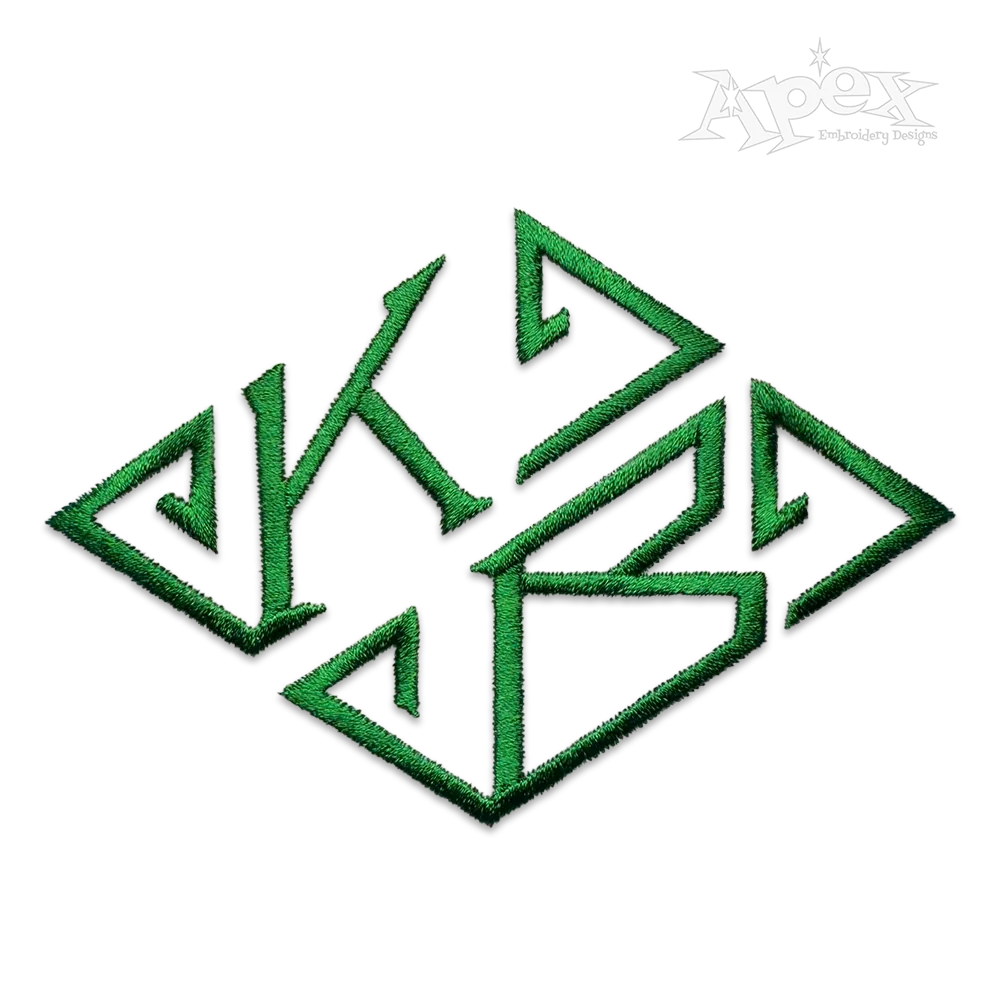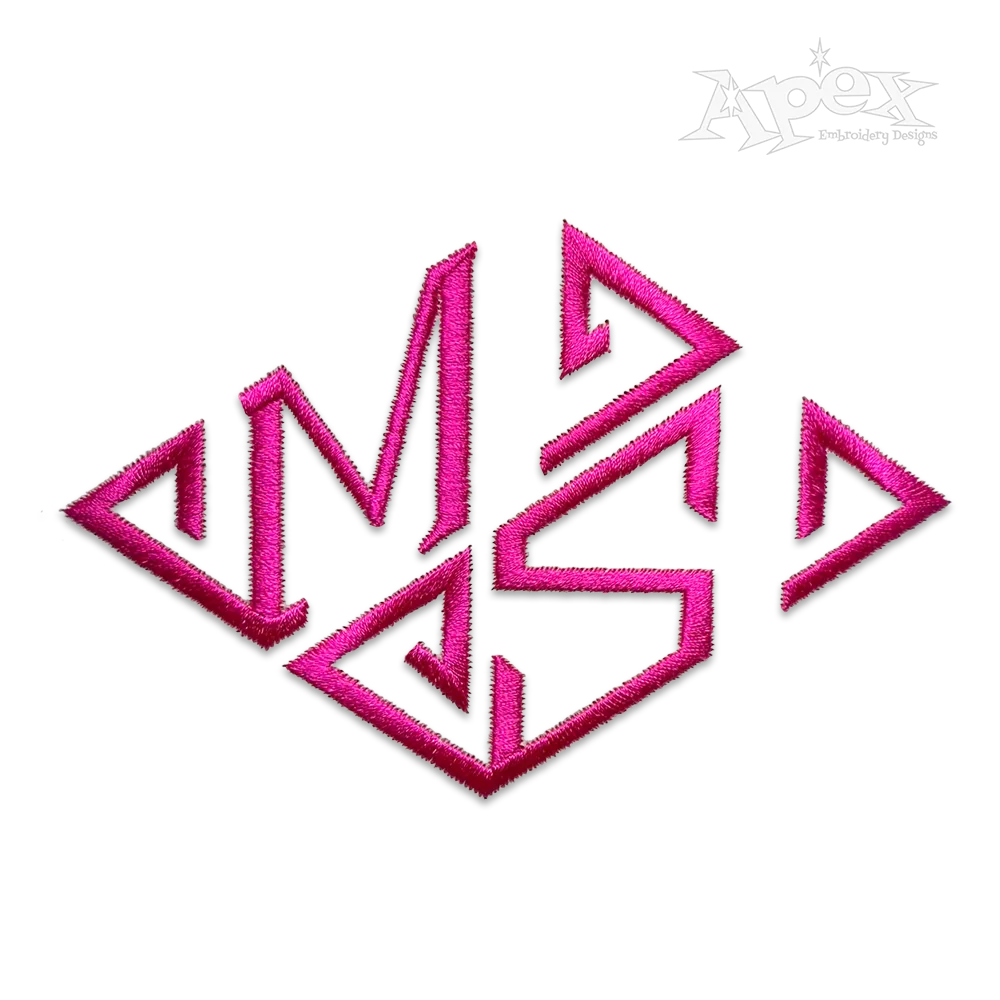
Marvin Rhombus Monogram Embroidery Font
Born from an appreciation for mid-century geometric balance and modern architectural tailoring, the Marvin Rhombus Monogram captures a captivating dialogue between crisp symmetry and lush thread dimension. When digitizing this two-letter diamond silhouette, our studio sought to reimagine traditional initials into a striking personal insignia. As your embroidery needle traces the contours of each character, the paired letters interlock seamlessly within their rhomboid boundary, creating a balanced, jewel-like impression that instantly elevates everyday textiles into bespoke heirlooms.
Project Ideas for Marvin Rhombus Monogram
The structured elegance of a two-letter rhombus monogram adapts effortlessly to both classic and contemporary aesthetics. Consider these inspiring applications for your studio:
- Luxury Table Linens: Stitch matching initials onto crisp Irish linen dinner runners and cocktail napkins for refined dining and celebratory dinner parties.
- Bespoke Resort Wear: Adorn lightweight linen button-downs, polo chests, and beach cover-ups with tonal embroidery for a polished country-club aesthetic.
- Bridal & Newlywed Gifting: Commemorate a couple's combined initials on plush cotton bathrobes, keepsake handkerchiefs, or custom honeymoon luggage tags.
- Executive & Travel Accessories: Bring refined personalization to heavy canvas boat totes, zippered travel kits, and golf towels using rich, contrasting thread tones.
- Heirloom Nursery & Bedding: Embellish boudoir throw pillows, pique blankets, and duvet covers with understated, timeless geometry.
Because the rhombus silhouette naturally creates visual direction with its angled outer edges, thoughtful hooping and positioning bring out its most dramatic impact:
- Corner Diagonal: Angle the monogram along the 45-degree mitered corner of table napkins or hemstitched hand towels, positioning the outer tips parallel to the fabric hem.
- Left Chest Alignment: Center the design directly over the pocket line on tailored garments, positioning the top vertex approximately seven to eight inches down from the shoulder seam.
- Centric Focal Point: On structural accessories like canvas bags or decorative shams, center the monogram both vertically and horizontally within the primary panel to let the diamond geometry anchor the entire piece.
- Cuff & Hem Accents: Utilize the 1.5-inch size angled parallel to a sleeve cuff or collar point for a discreet, bespoke touch reminiscent of fine bespoke tailoring.
Marvin Rhombus Monogram Craft & Letterform Details
Digitizing a framed two-letter monogram requires meticulous consideration of letterform geometry and fabric push-pull dynamics. Rather than forcing standard typographic letters into a rigid border, each glyph in the Marvin Rhombus collection was custom-sculpted from the ground up so that its outer contours directly define the diamond perimeter. The left letter mirrors and complements the right, creating a cohesive emblem that feels harmonious rather than cramped.
Beneath the surface, calibrated underlay foundations anchor your fabric before the lustrous satin topstitching begins, preventing fabric distortion and ensuring clean, razor-sharp perimeter points. Every satin column is programmed with subtle angle variations that catch ambient light like cut crystal, giving your finished embroidery a radiant, high-end sheen whether worked in traditional rayon, durable polyester, or shimmering metallic thread.